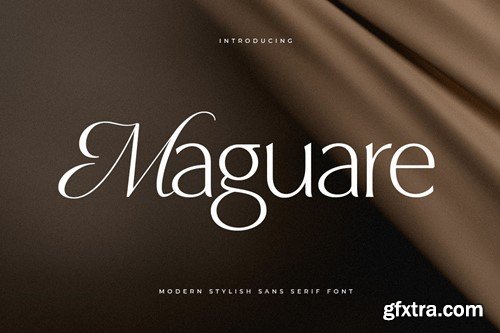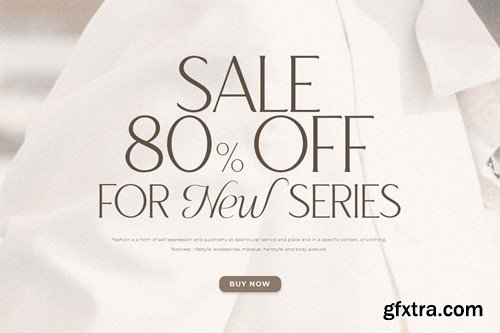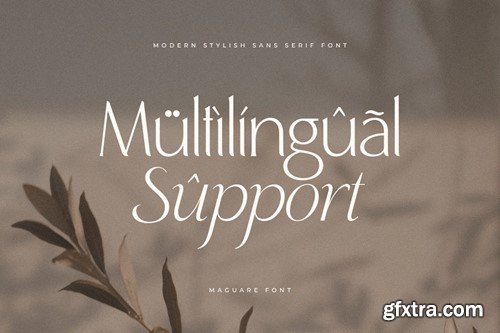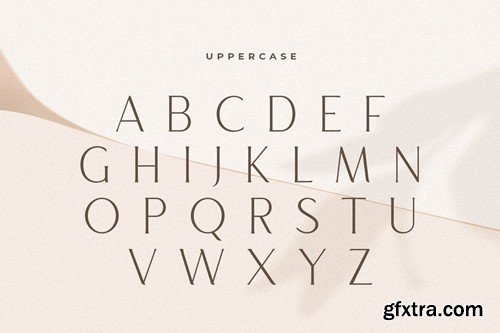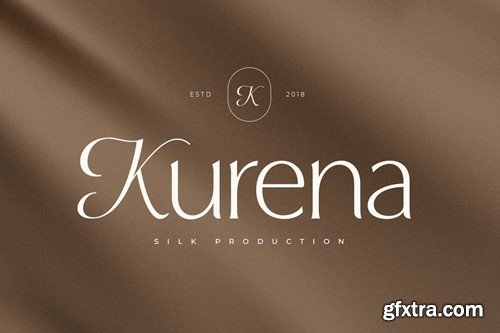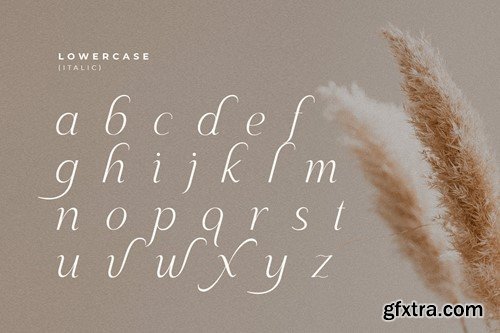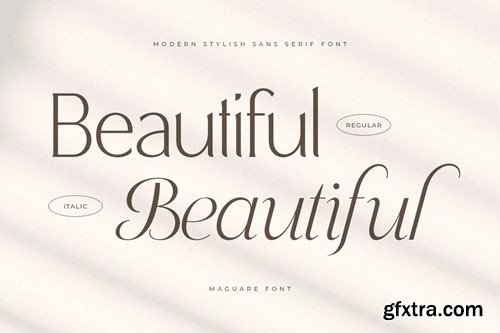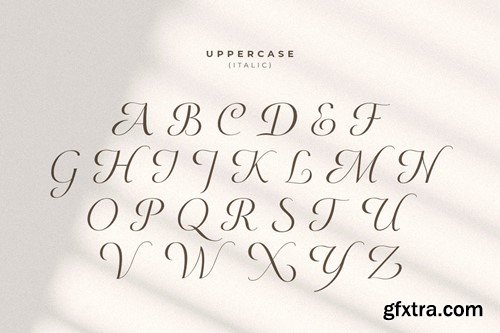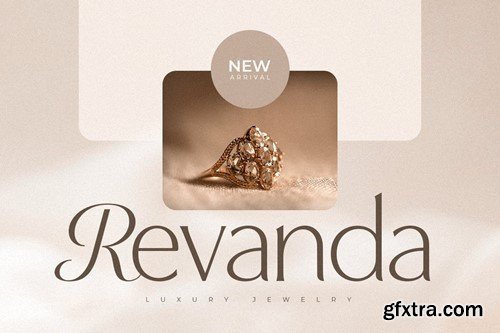
Maguare - Modern Stylish Sans Serif Font B5PQ6TG
Maguare - Modern Stylish Sans Serif Font
Maguare is Modern Stylish Sans Serif Font with Free Pairing Font and make your project looks luxury, elegant, modern, minimalist, unique and classy-look. This font crafted specials for Modern Stylish projects, ready to use on Magazine, Social Media, Branding, Logo, and Many more that needs Modern Stylish touches.
Maguare is also included full set of:
• Regular and Italic Style
• uppercase and lowercase letters
• multilingual characters
• numerals
• punctuations